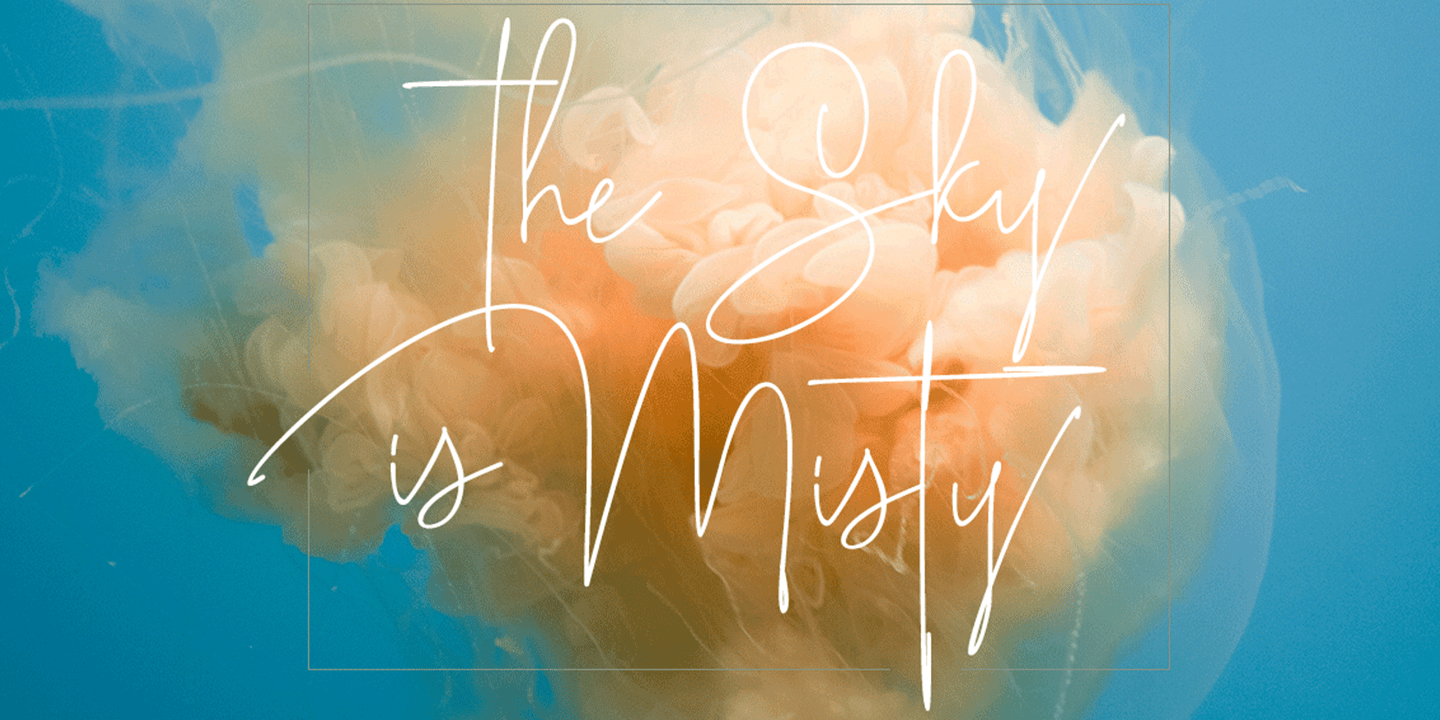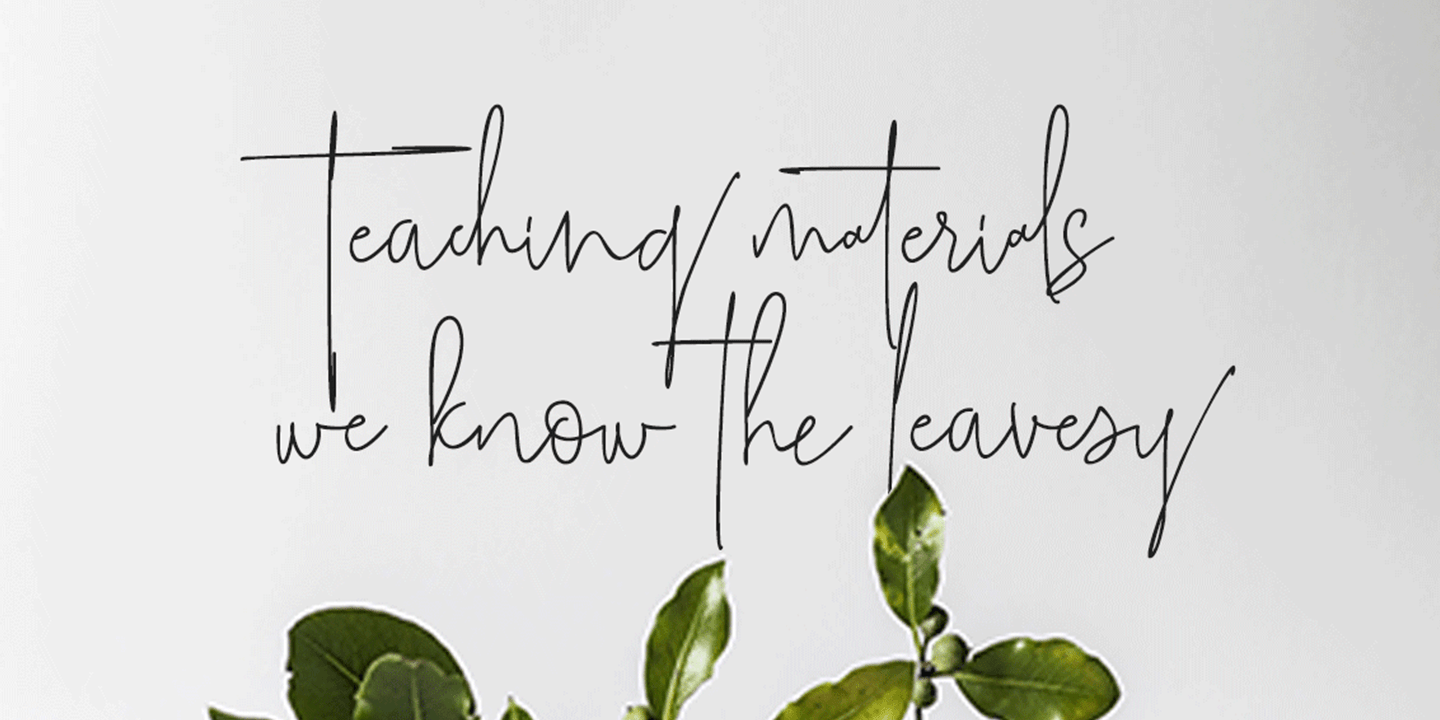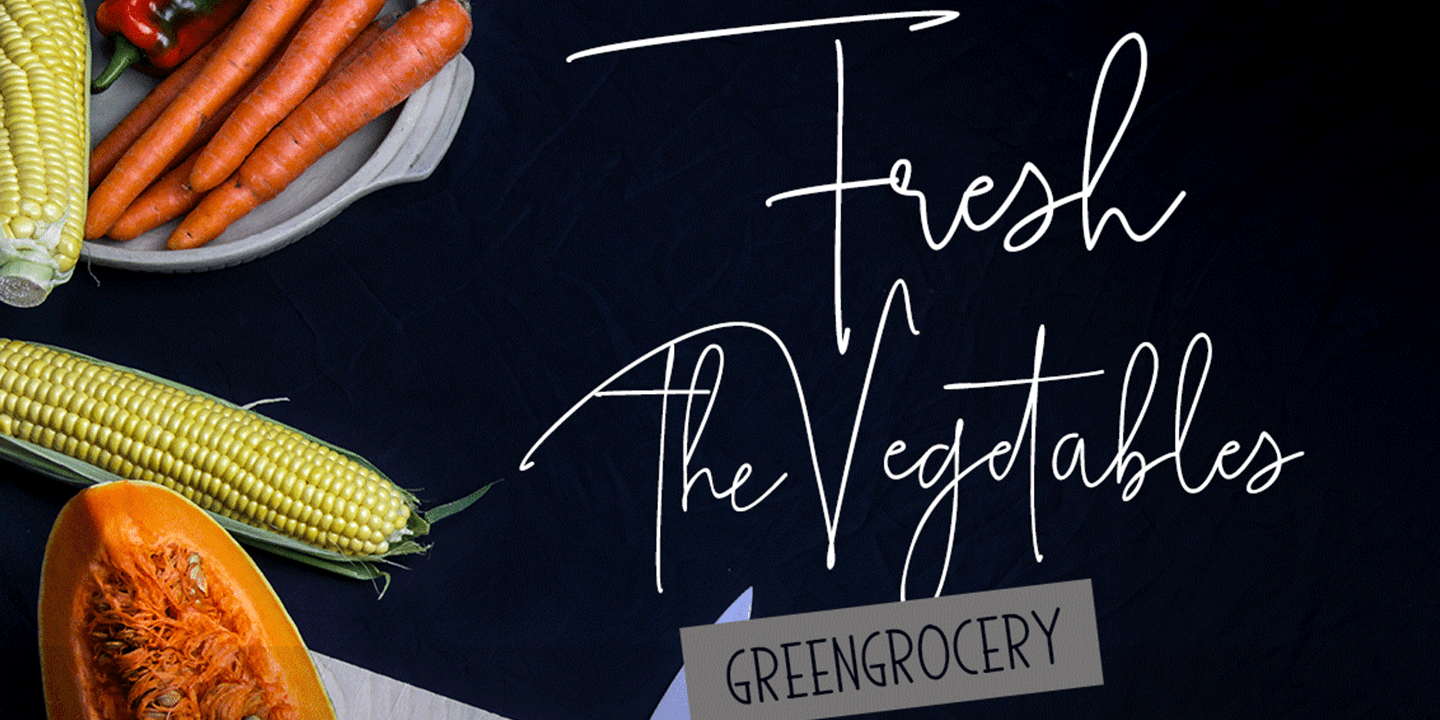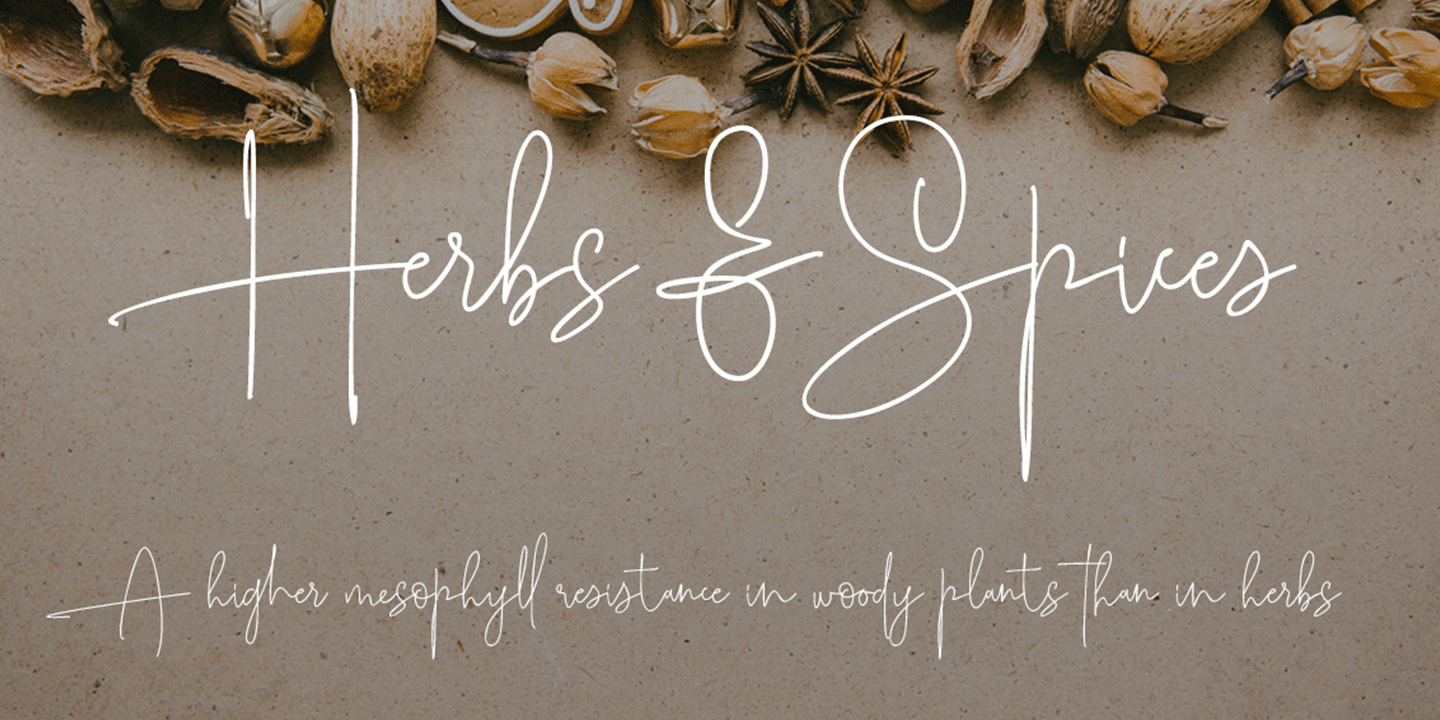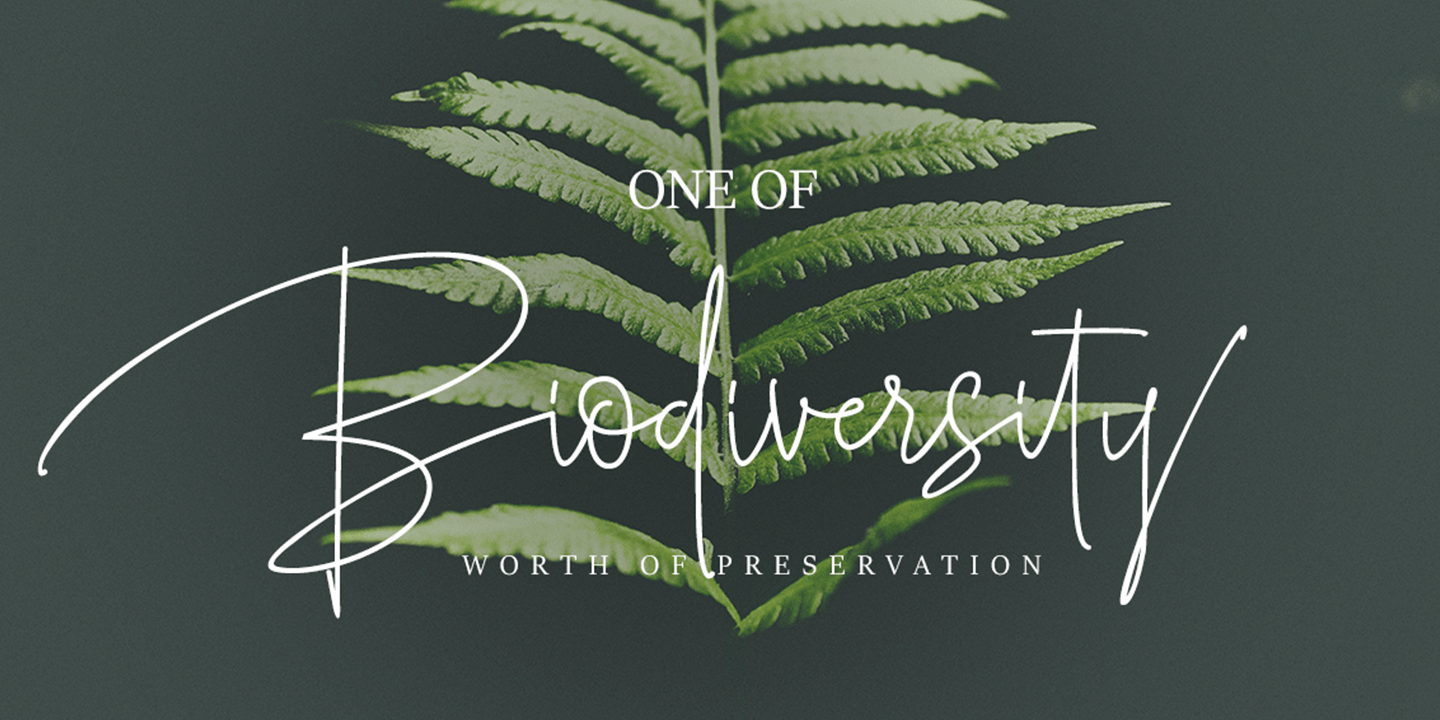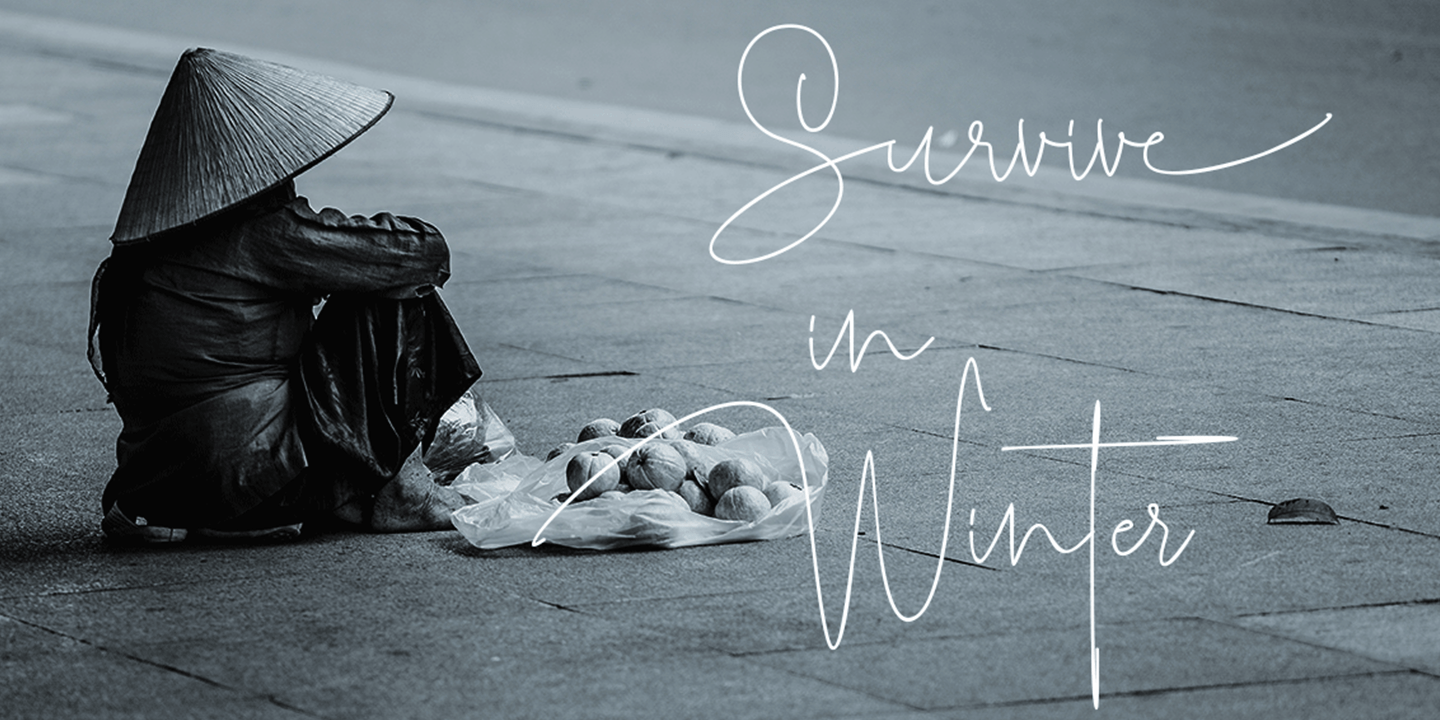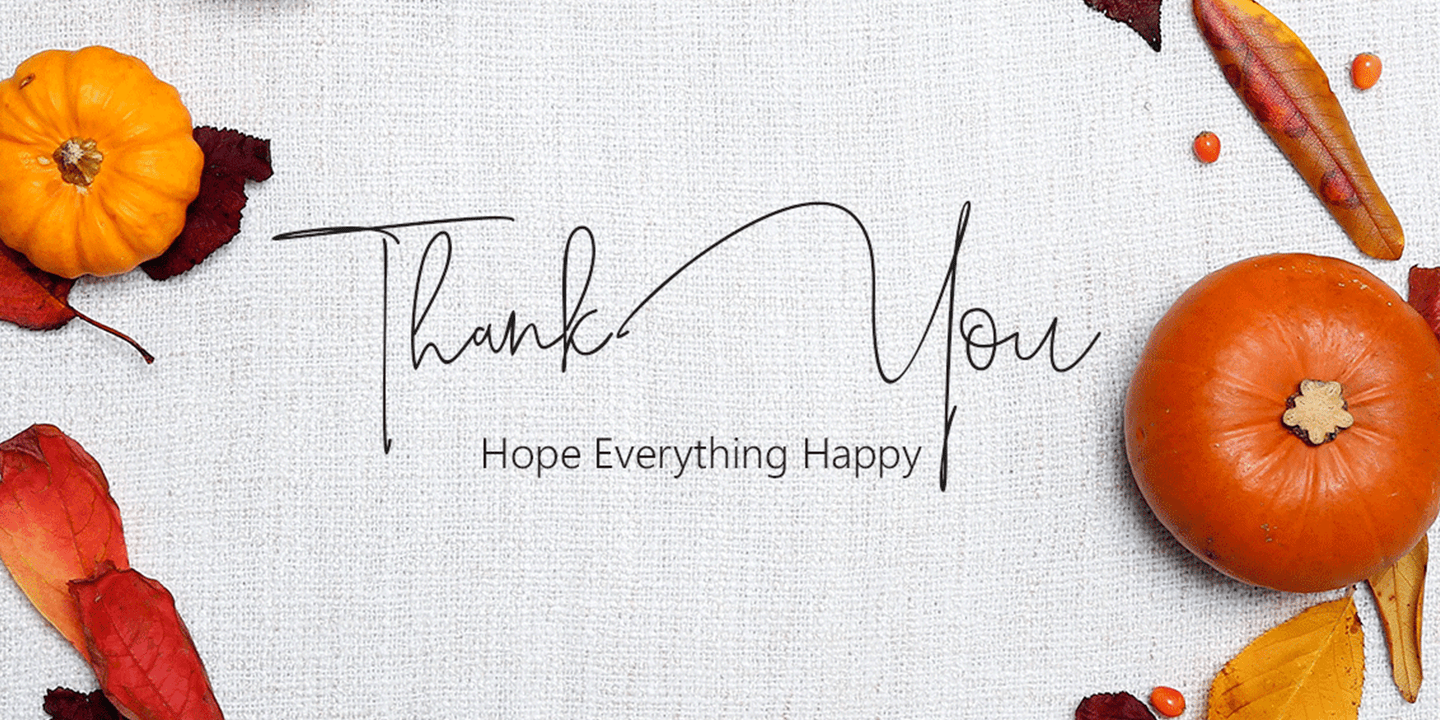
Kingswell
Kingswell  a work that is purely a result of handwriting, has a natural characteristic. this is perfect for invitations, signatures, blogs, social media, business cards, product brands.
Kingswell  a work that is purely handwritten, has its own characteristics with the style of monoline It is perfect for invitations, signatures, blogs, social media, business cards, product brands, also equipped with 63 ligature.
The Kingswell font family includes 307 glyphs.